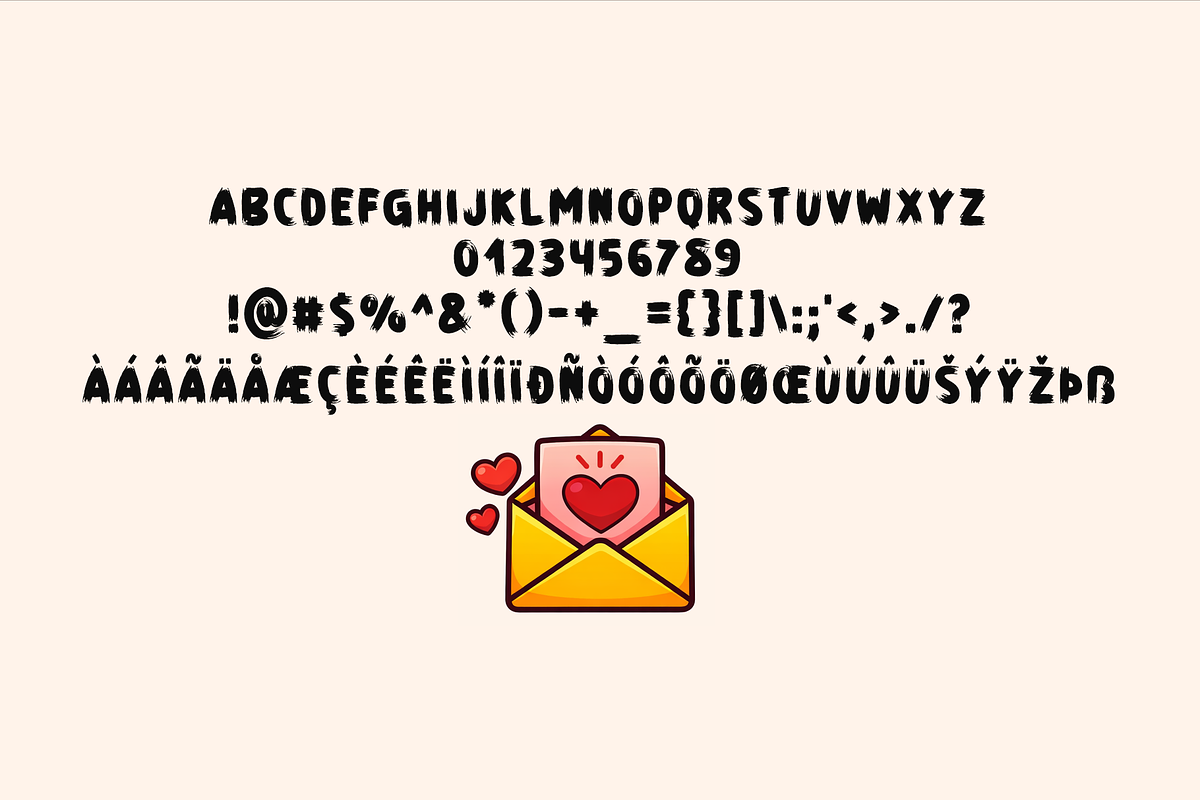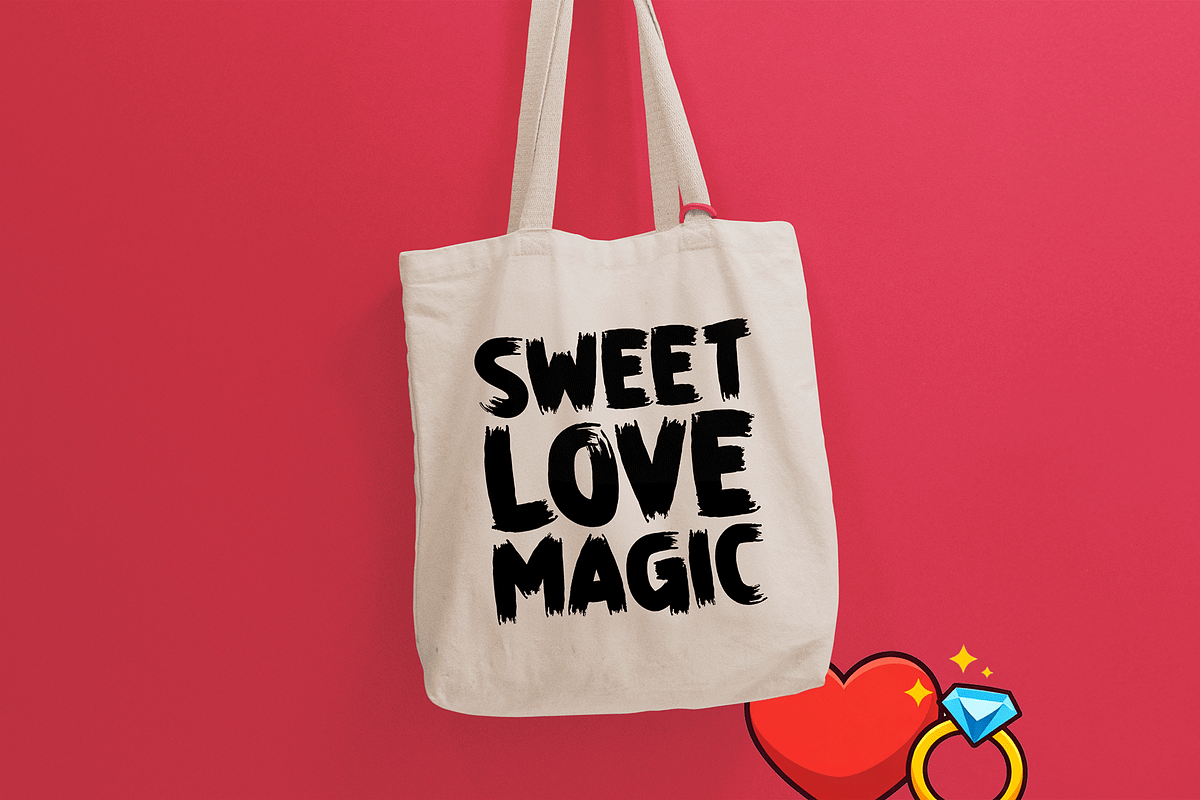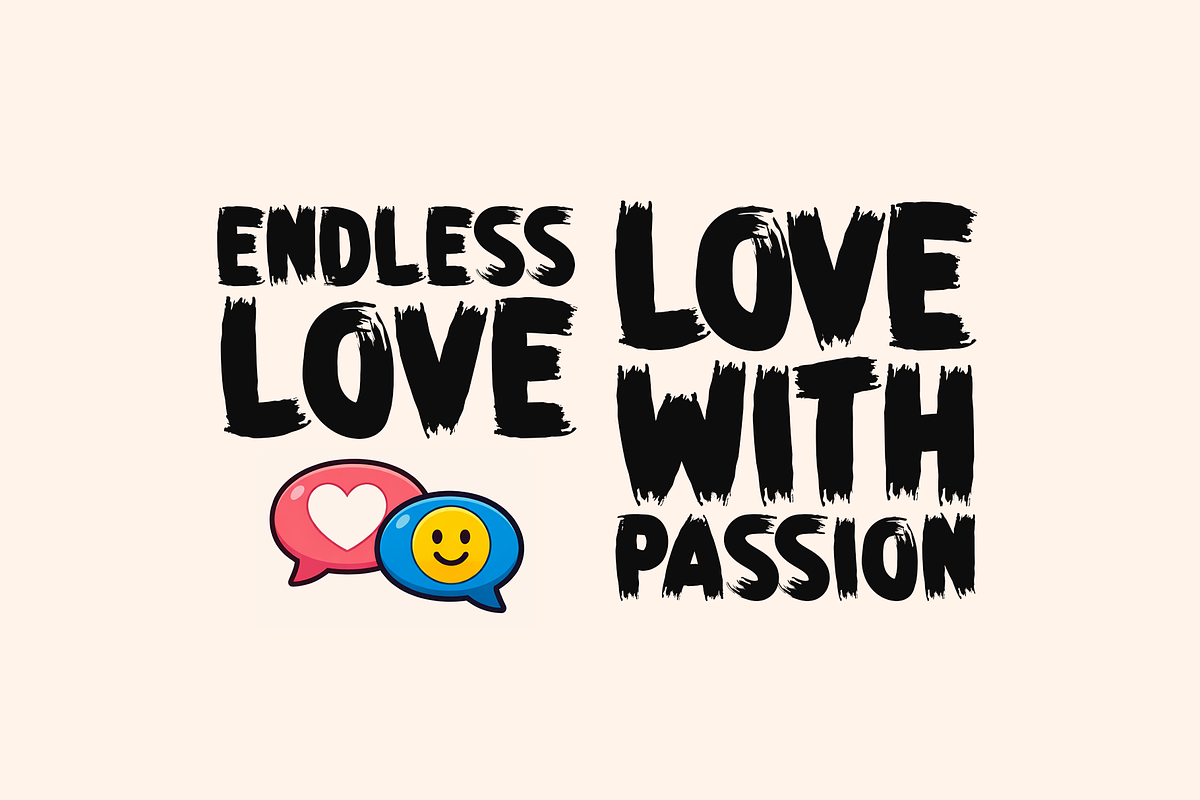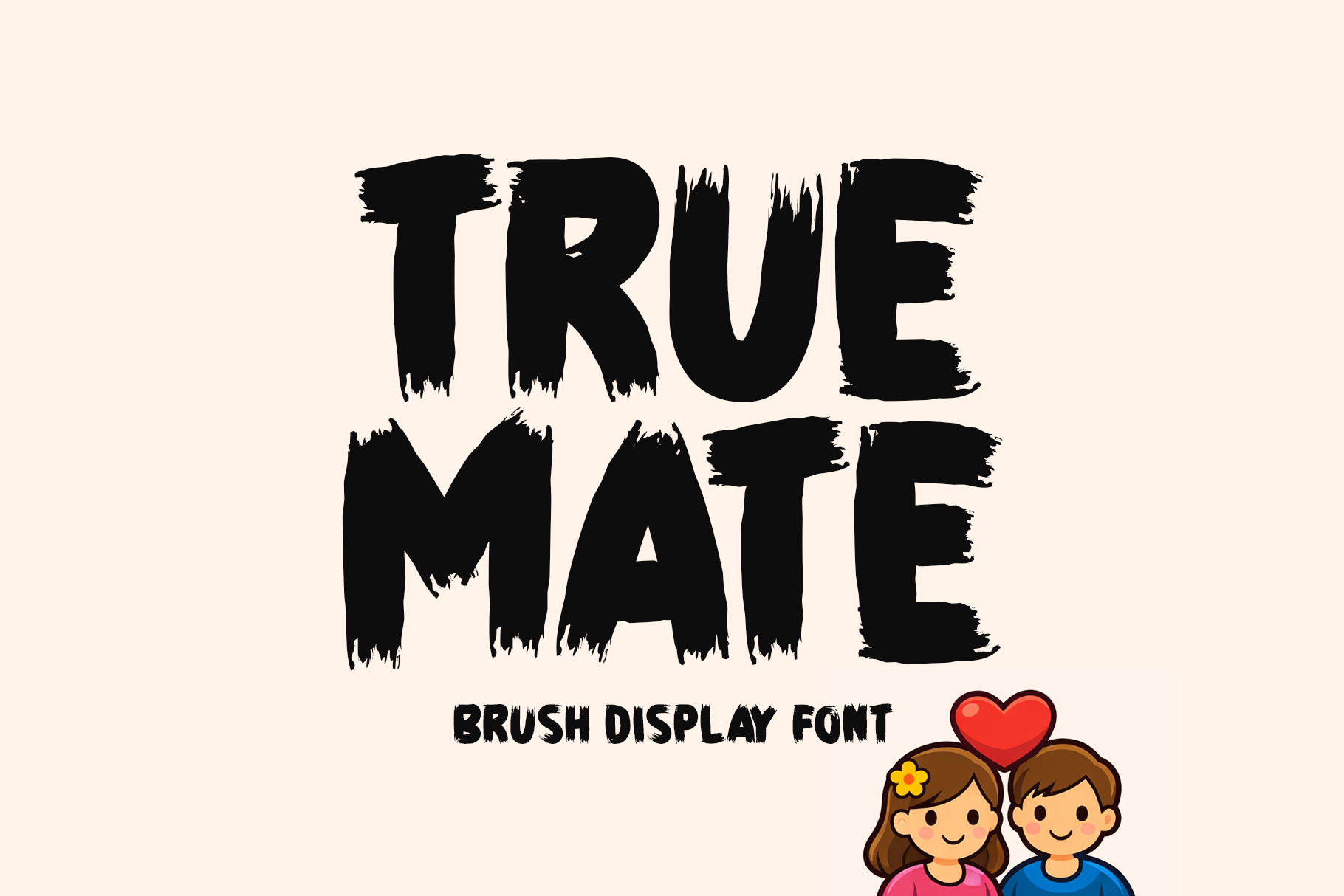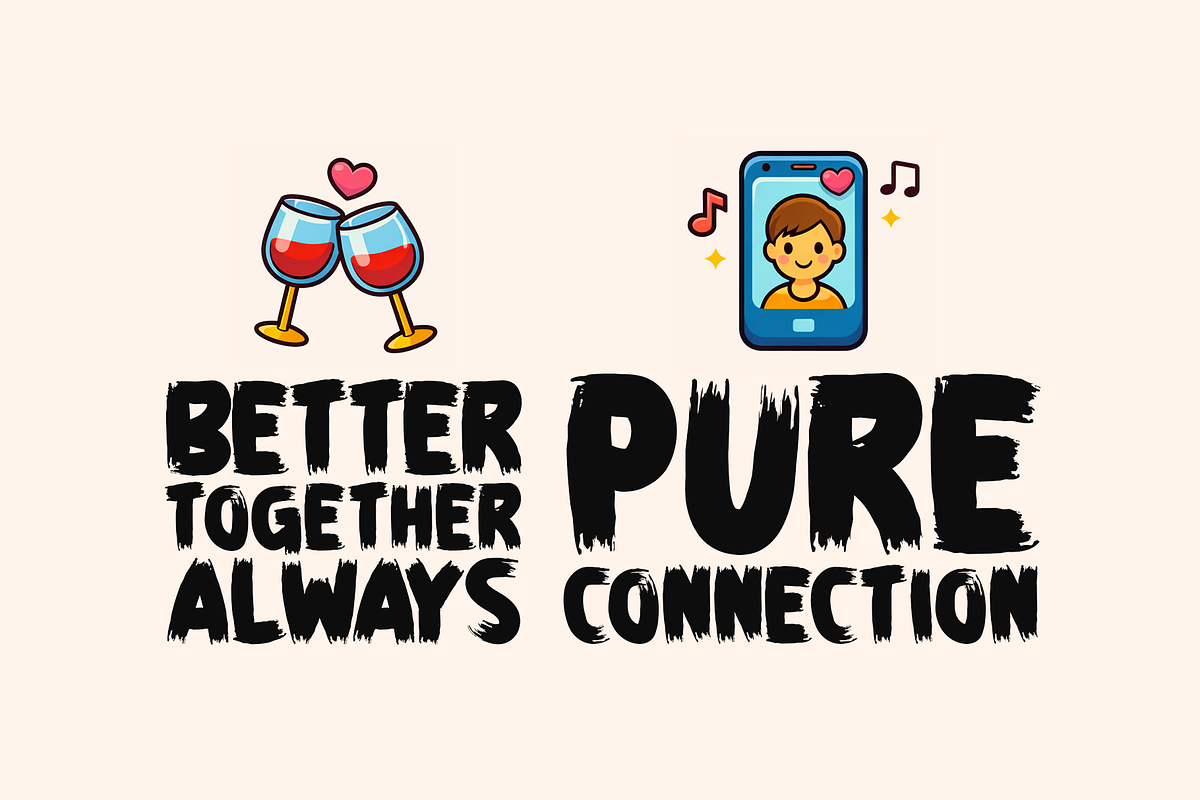
True Mate Typeface
True Mate is a bold brush display font designed to express strong emotions, real connections, and authentic character. Its rough edges and hand-painted strokes create a powerful, energetic presence that instantly grabs attention. Perfect for love themes, branding, posters, social media graphics, merchandise, and expressive typography designs.
True Mate brings raw charm, warmth, and confidence into every word—making your message feel intimate, bold, and unforgettable.